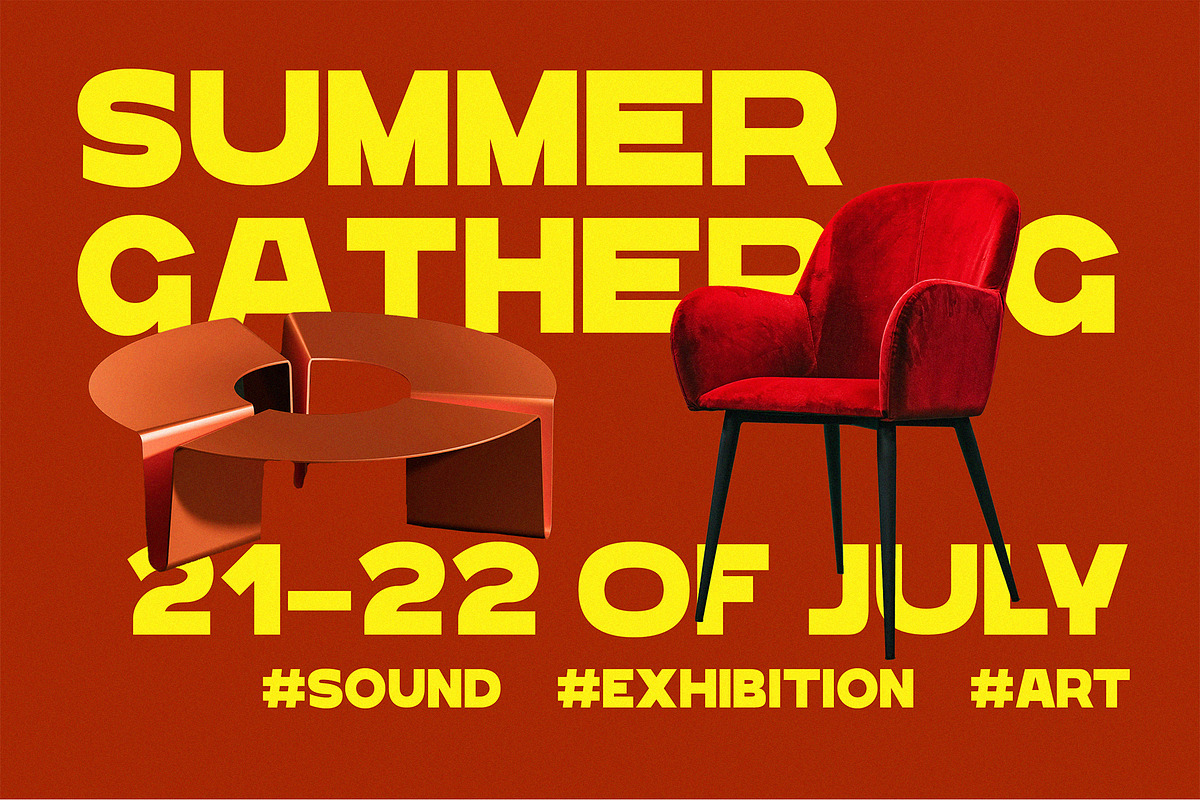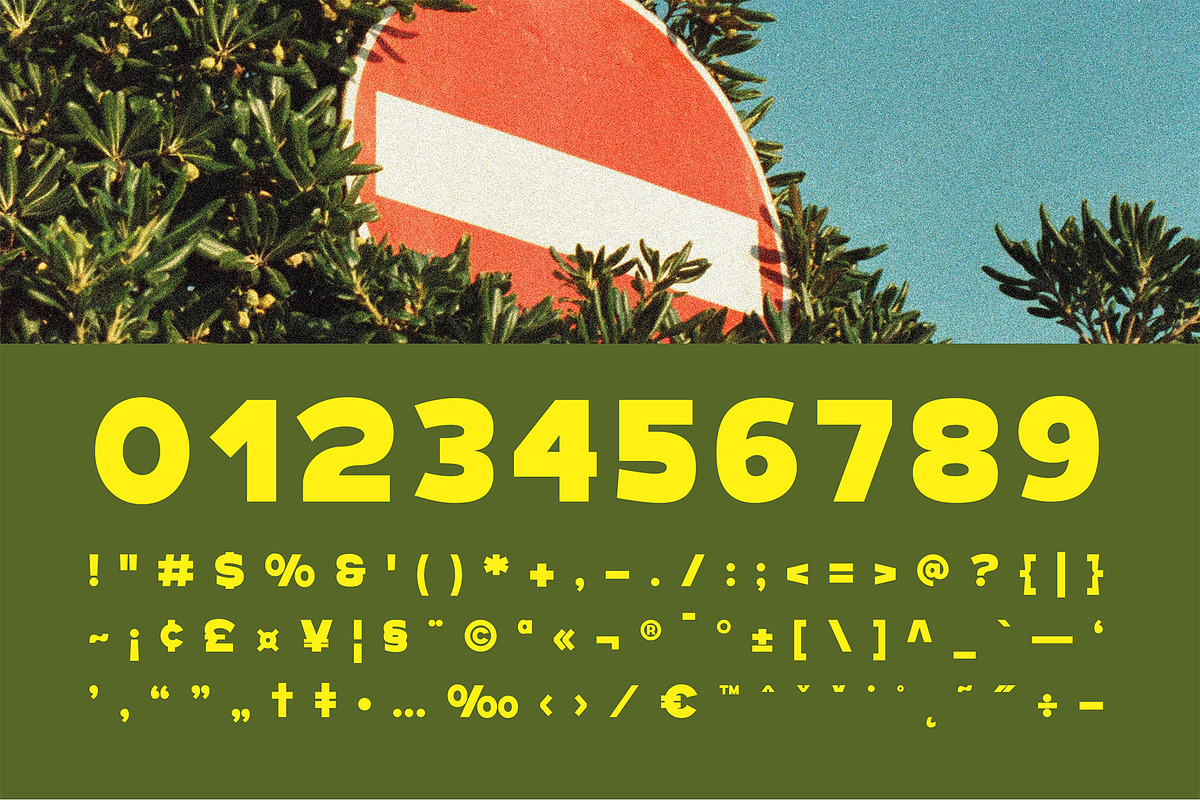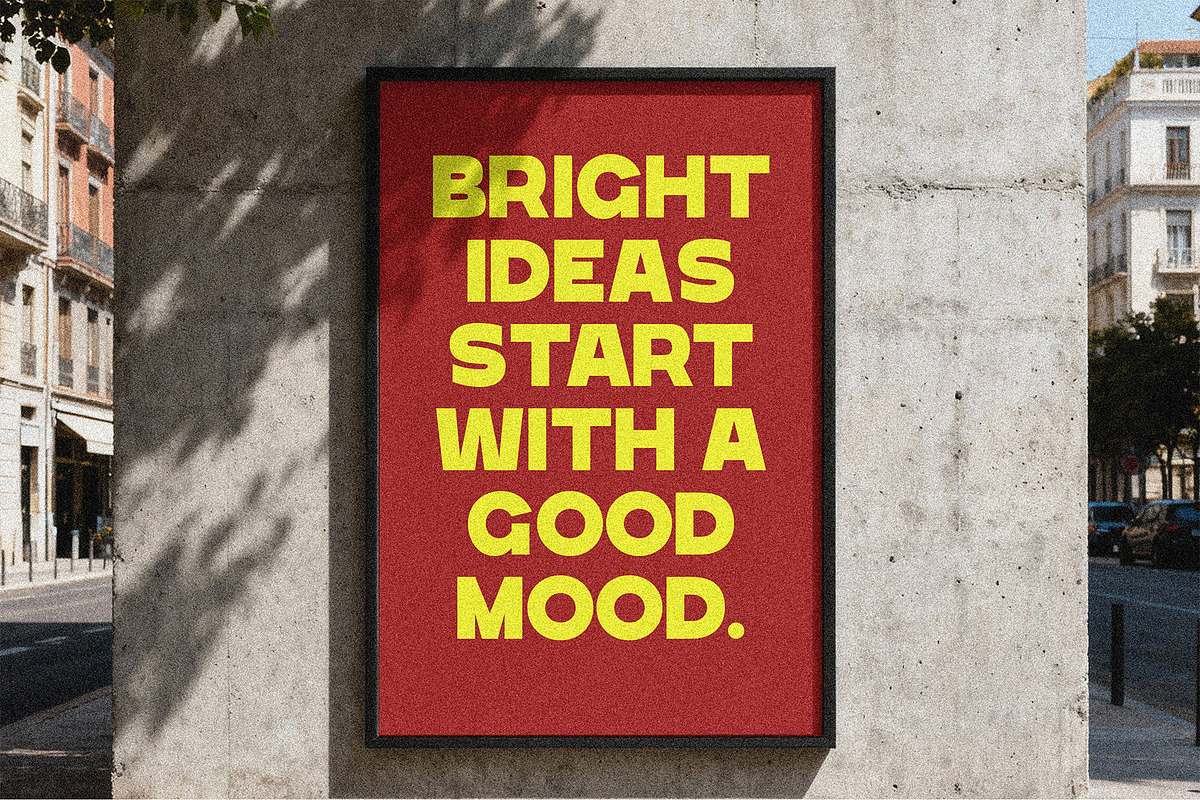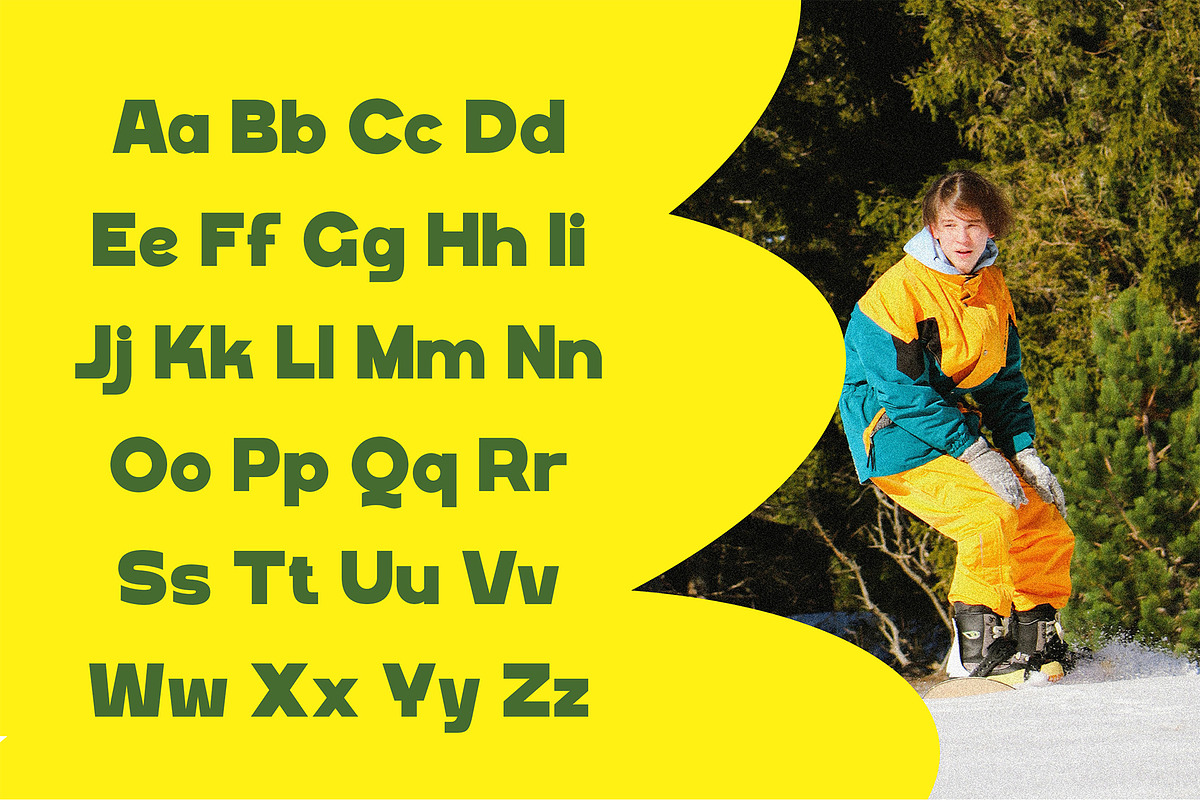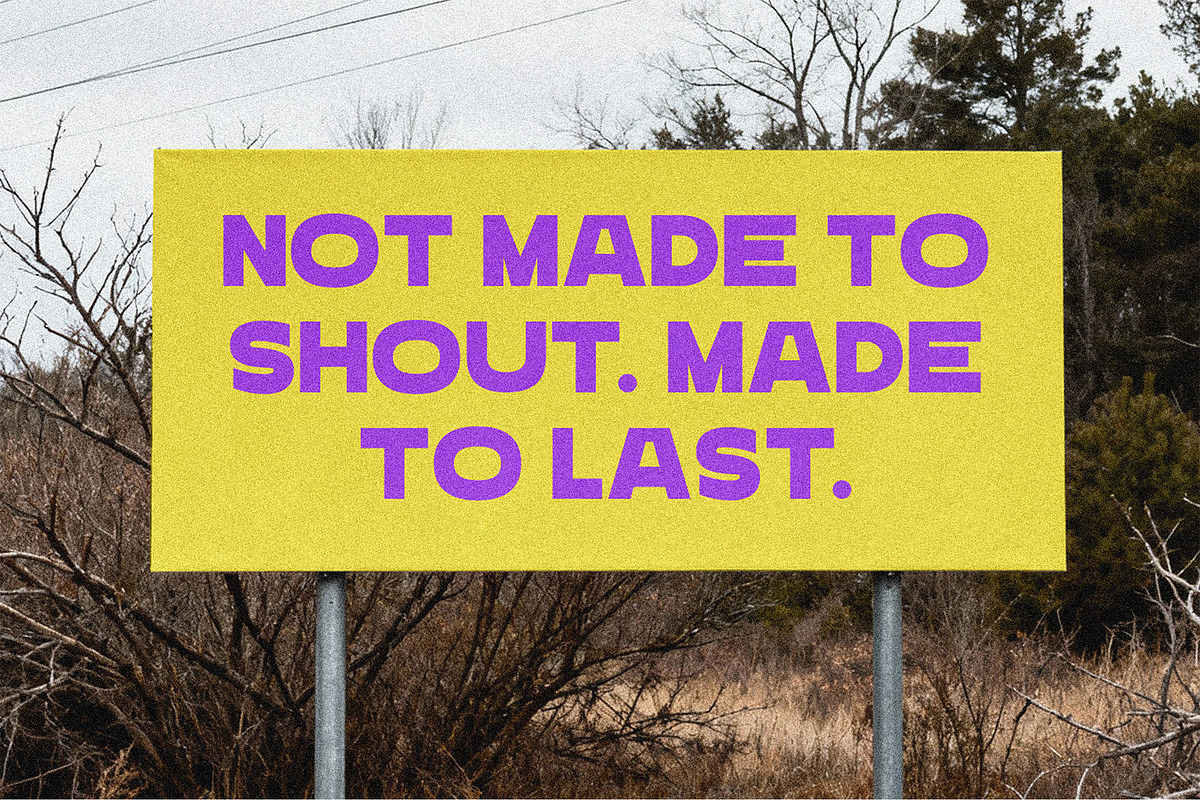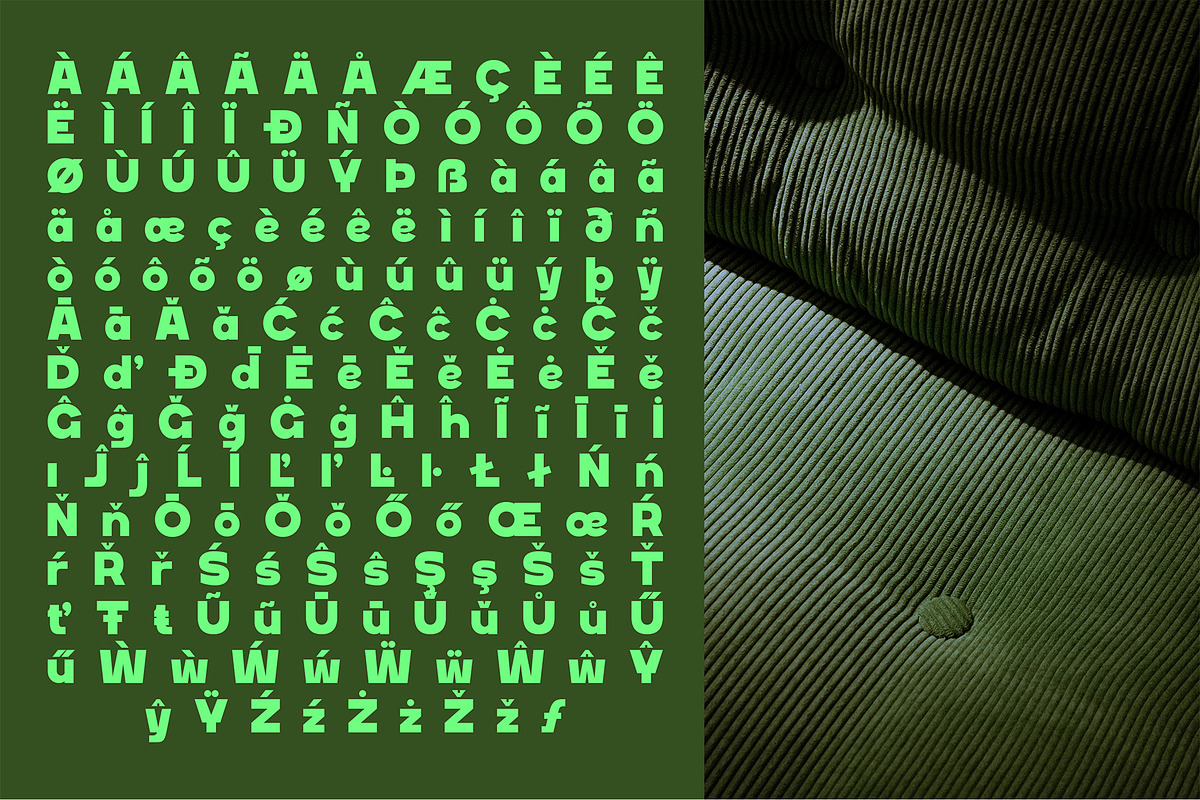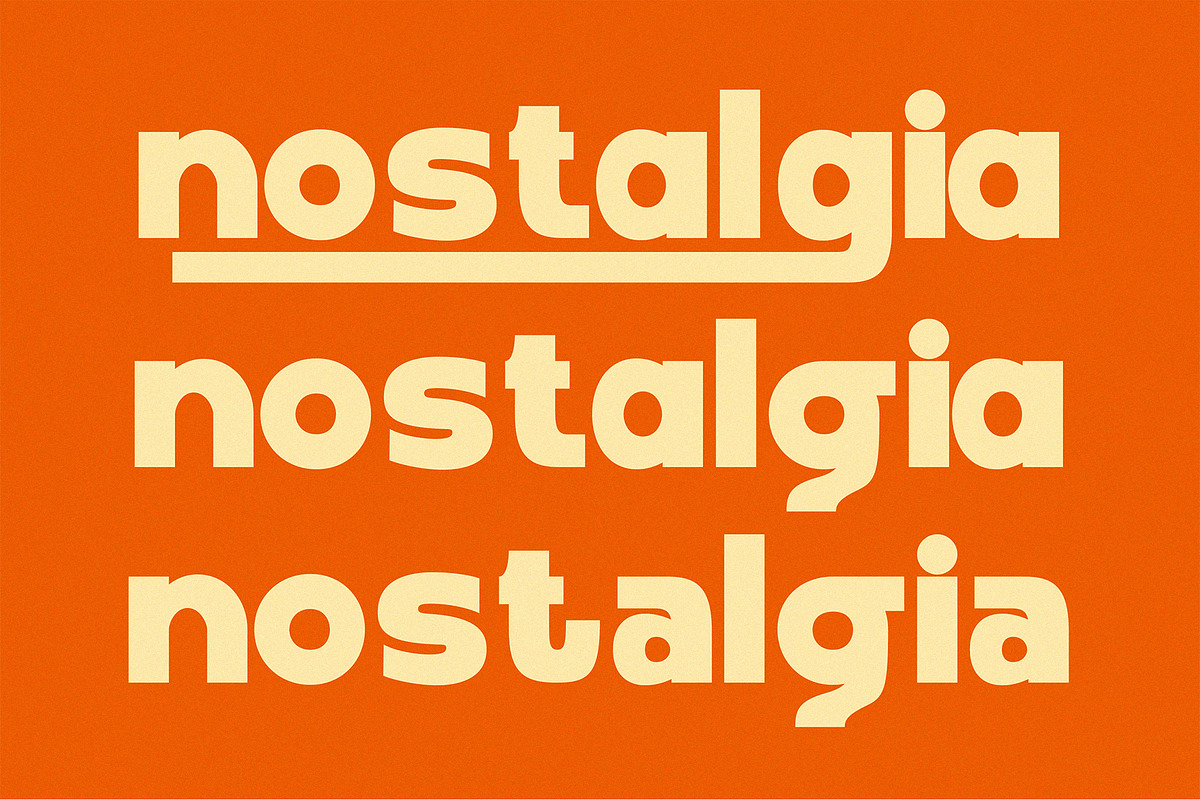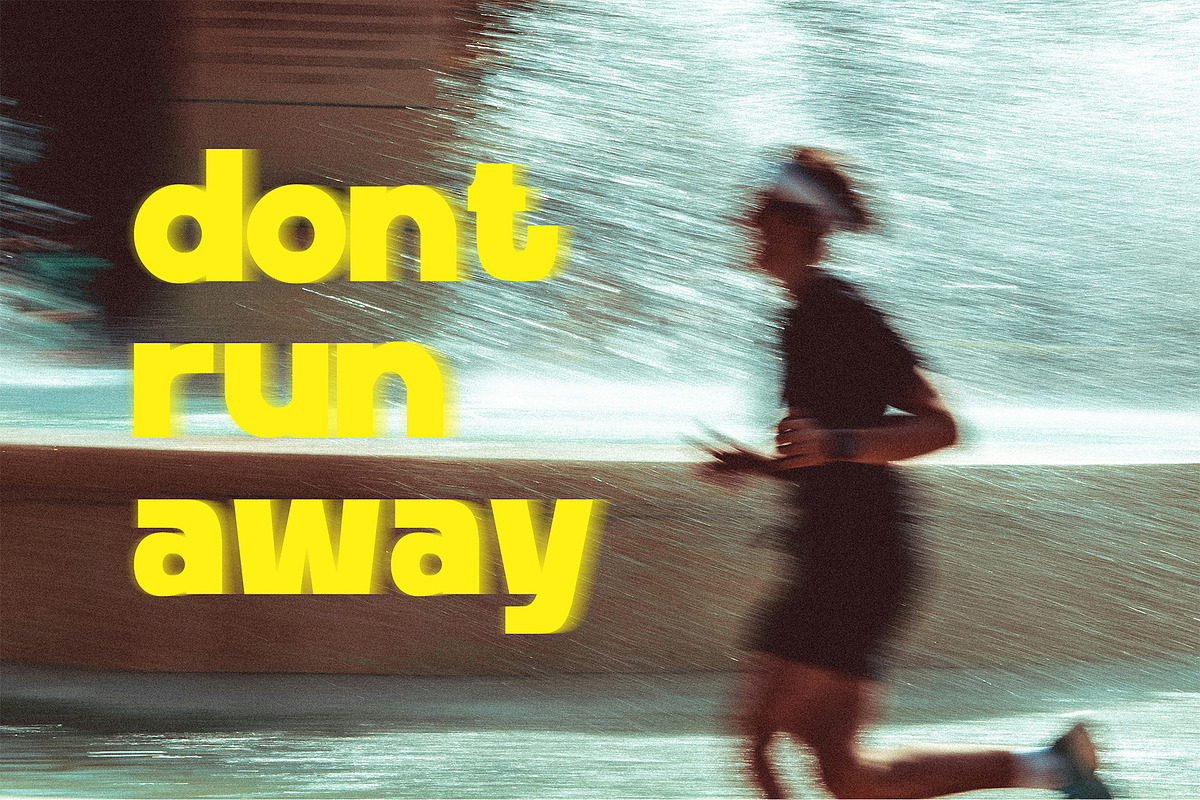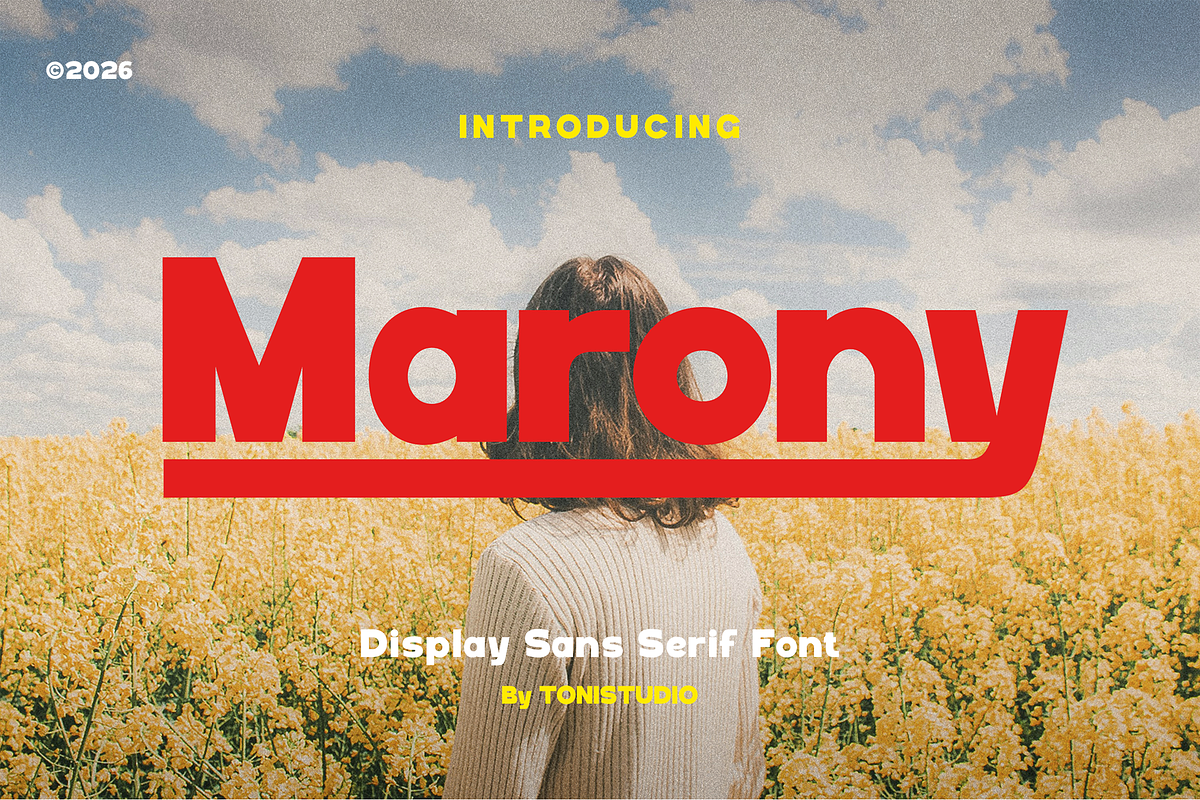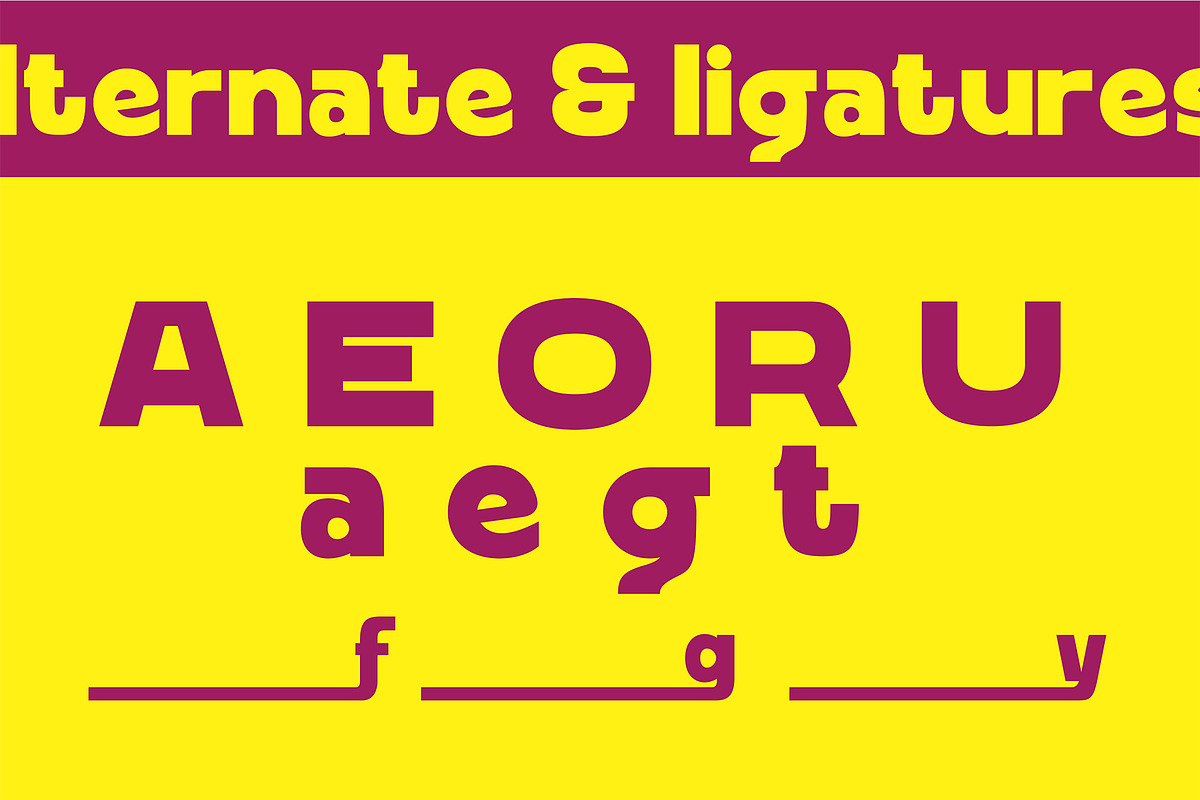
Marony || modern sans
Marony is a bold and modern display sans serif font designed to make a strong visual impact. With its solid structure, clean curves, and confident letterforms, Marony delivers a powerful and eye-catching presence in any design. This typeface is perfect for headlines, branding, posters, packaging, and statement typography. Its contemporary style makes it ideal for creative projects that demand attention while maintaining clarity and readability. Marony combines simplicity with strength, making it versatile for both digital and print applications. Perfect For Logo design, Branding projects, Poster & headline design, Social media graphics, Website headers, Packaging design, Advertising campaigns, Modern editorial layouts
- Bold Display Style
- Clean Sans Serif Structure
Marony is the perfect choice for designers who want bold, modern, and impactful typography. Please feel free to contact us if you have any questions, we are happy to help. Have fun creating with Marony font,